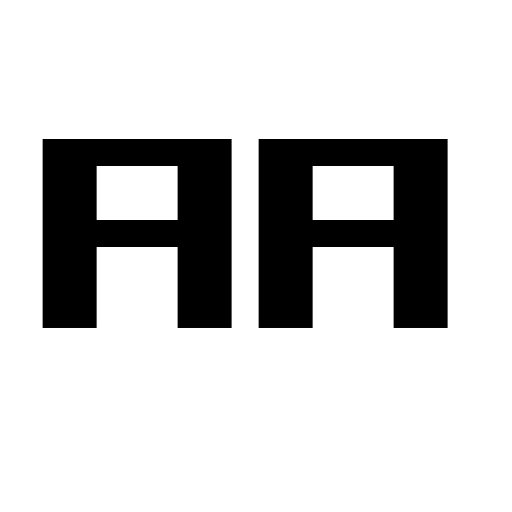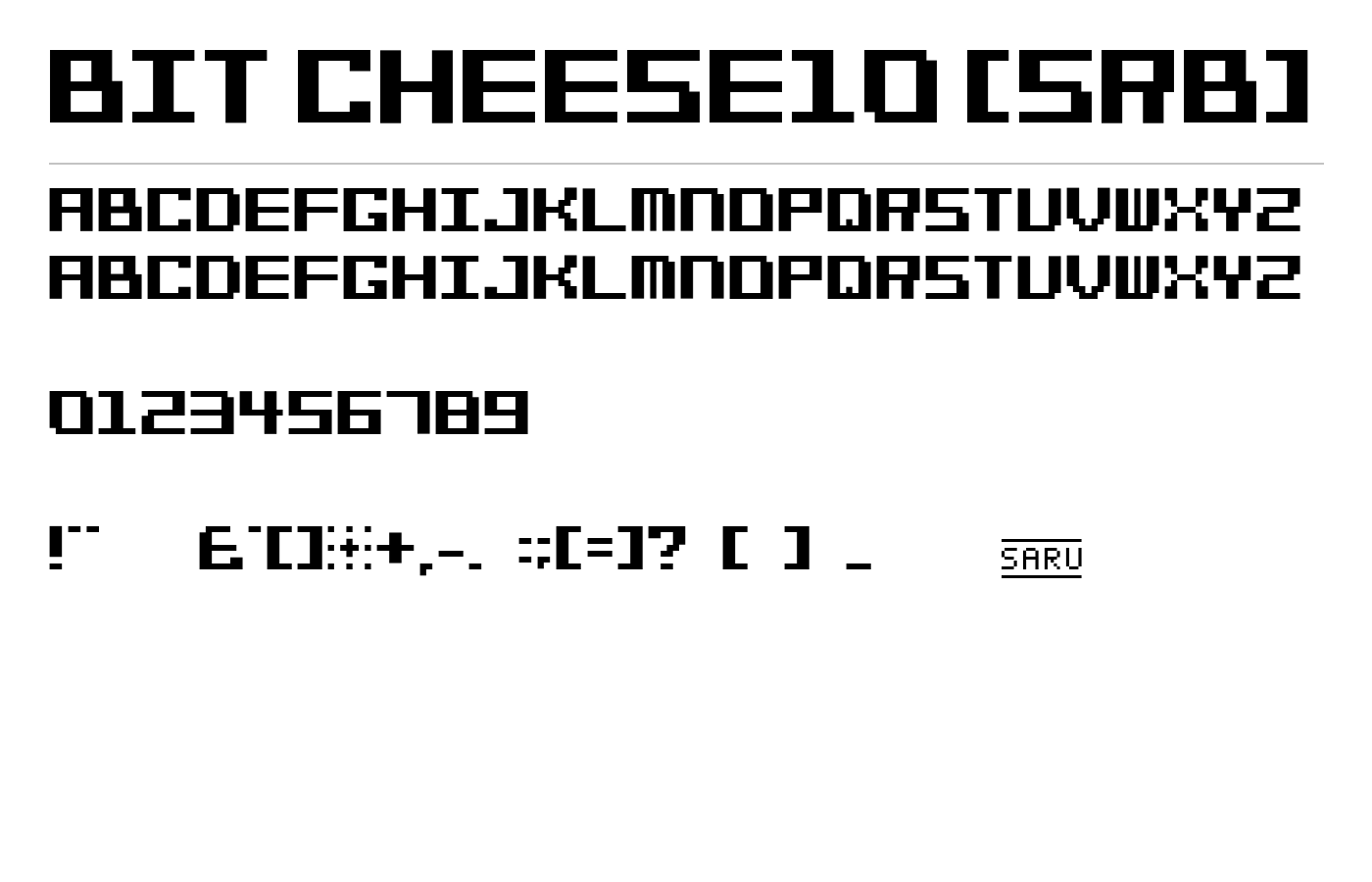
Bit Cheese10 (sRB) is a bold, blocky sans serif font with a pixelated, digital aesthetic reminiscent of early computer and video game typography. Its monospaced, geometric letterforms feature a consistent stroke weight and sharp edges, giving it a techy, retro-futuristic feel ideal for gaming, coding, and digital-themed designs. This font works best for headlines, logos, and playful editorial projects that want to evoke nostalgia and tech culture with a modern twist.
Bit Cheese10 (sRB) Font